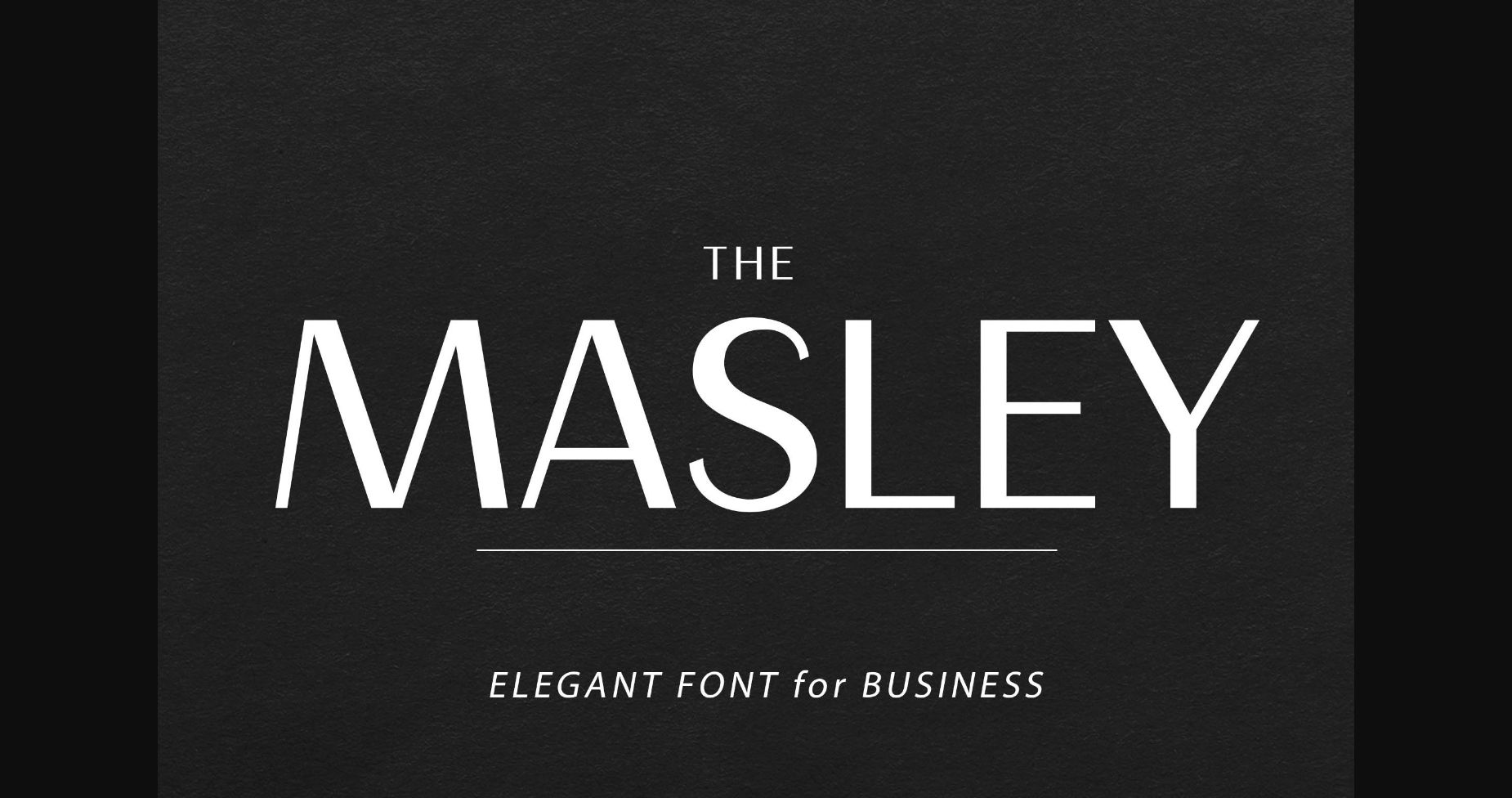
About Masley Font
Masley is a cool, modern and authentic sans serif font. No matter the topic, this font will be an incredible asset to your fonts’ library, as it has the potential to elevate any creation.